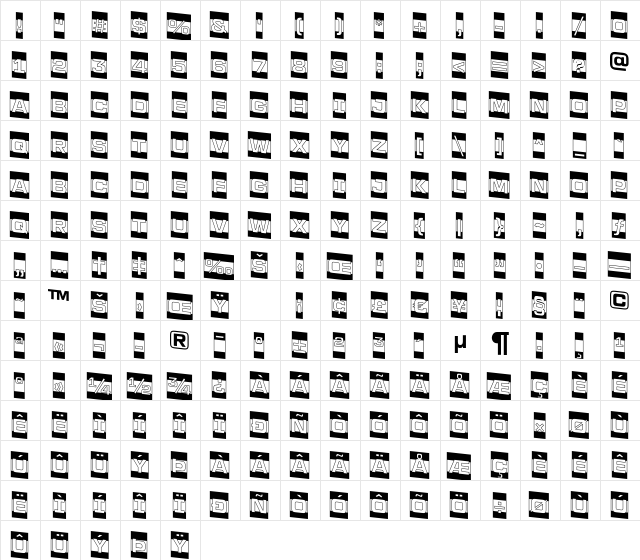
a_LineaSansCmB&WDn Regular
Designer: W.Chufarofsky & M.Slutsker
Design Context for a_LineaSansCmB&WDn
a_LineaSansCmB&WDn is a composed and adaptable typeface that performs quietly and consistently across a wide range of design contexts.